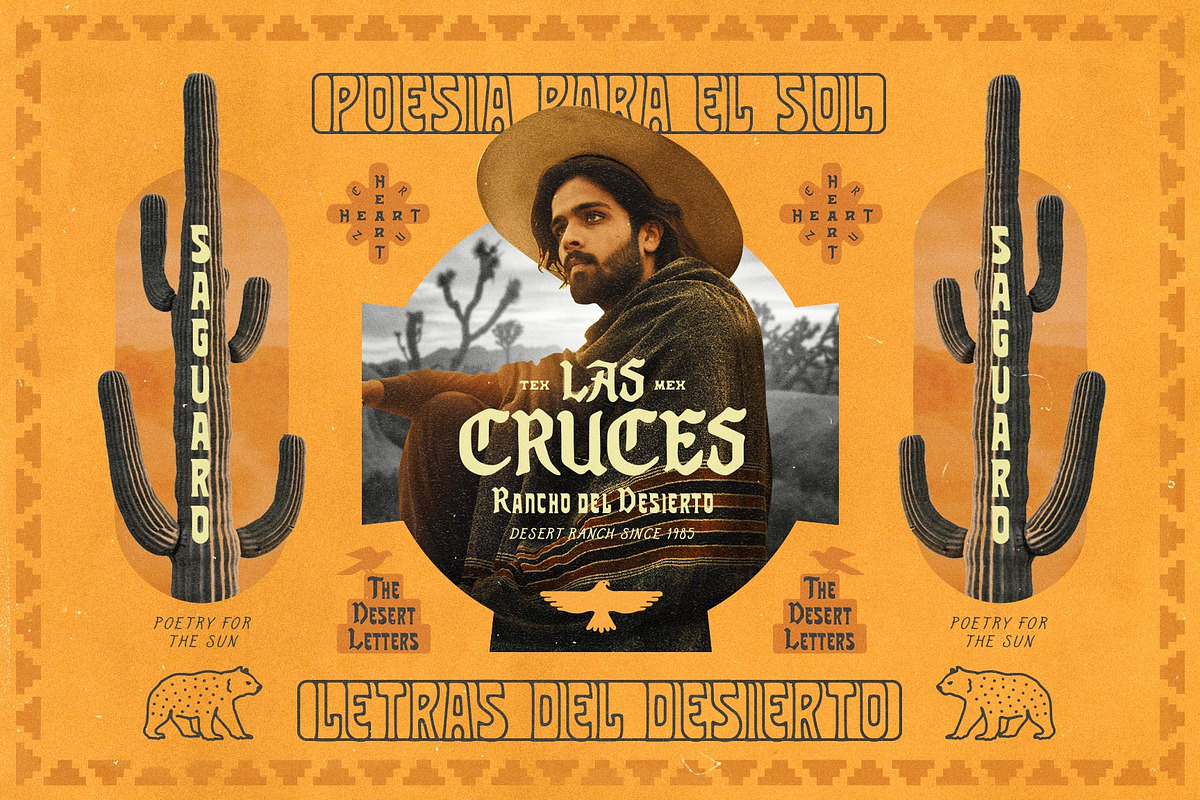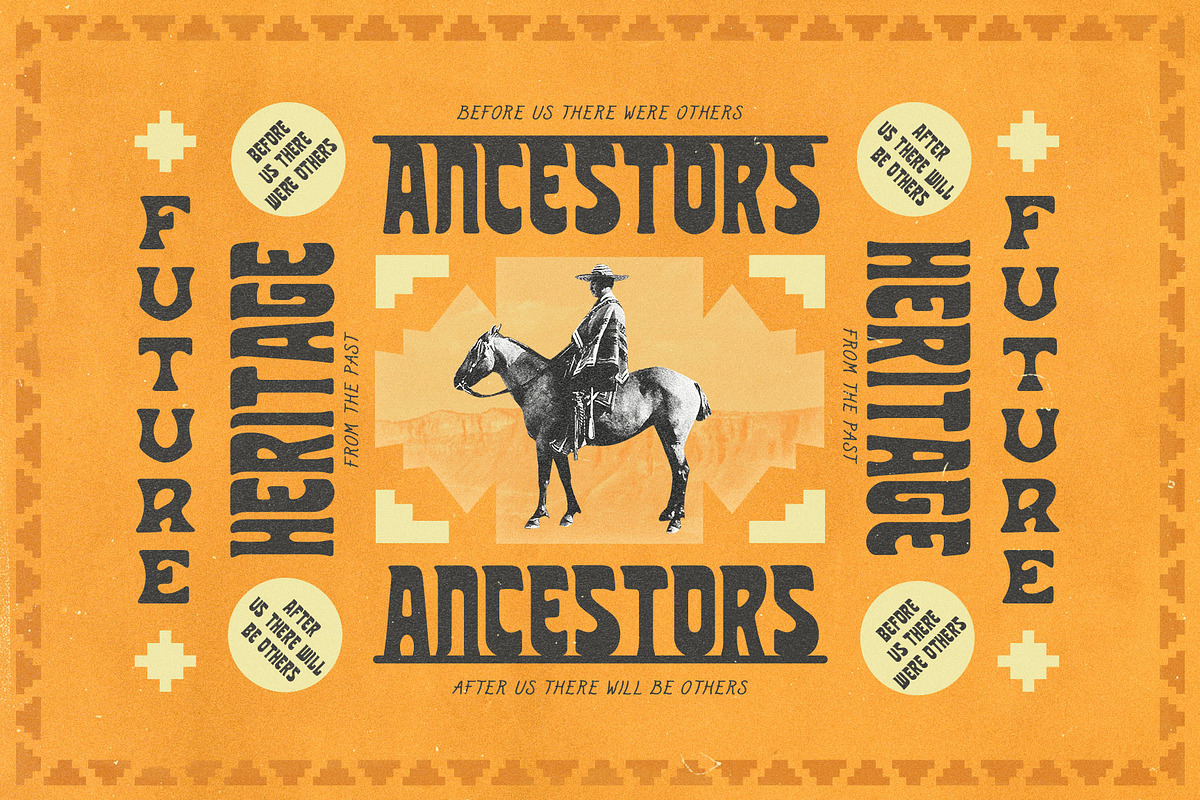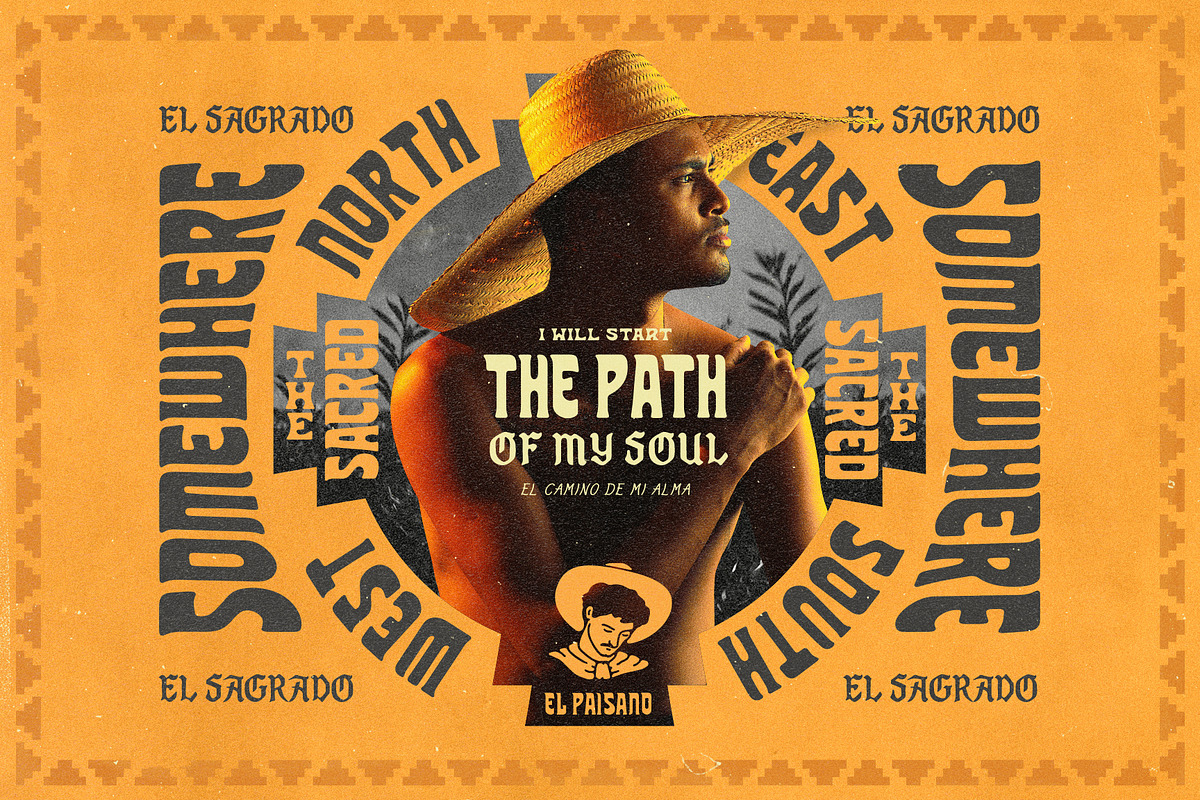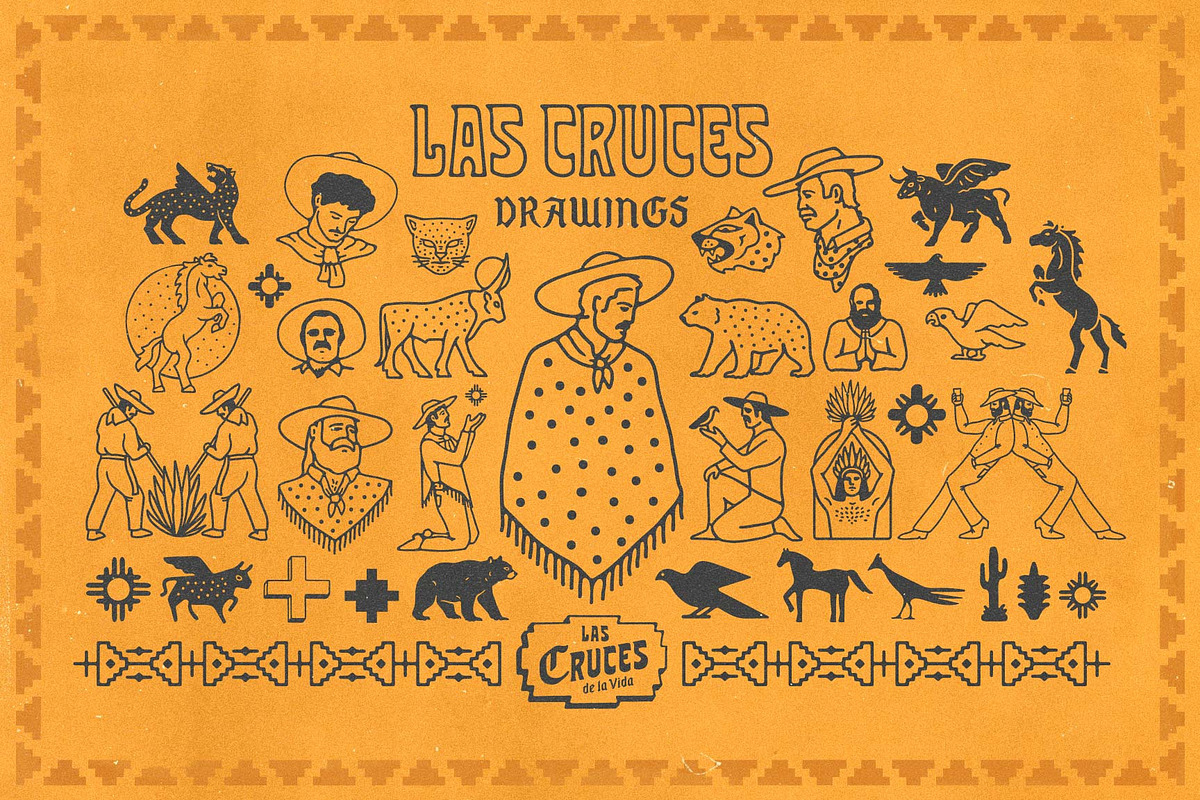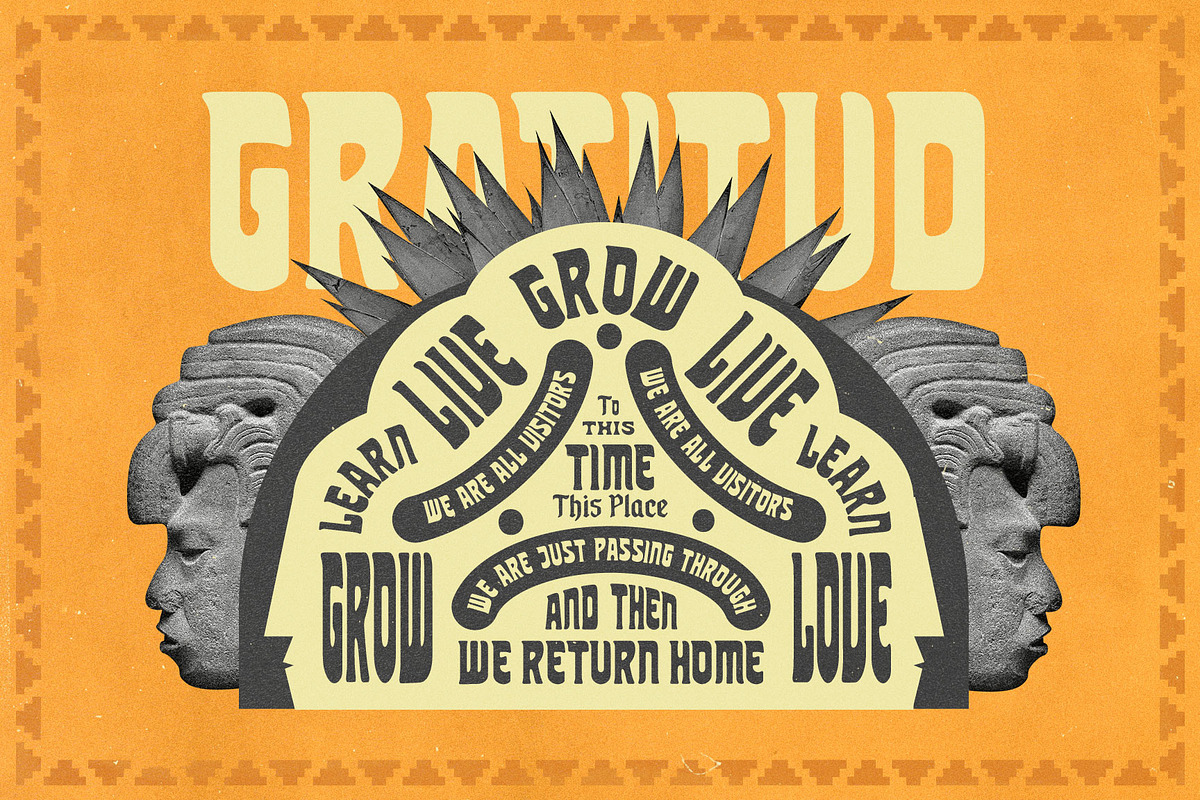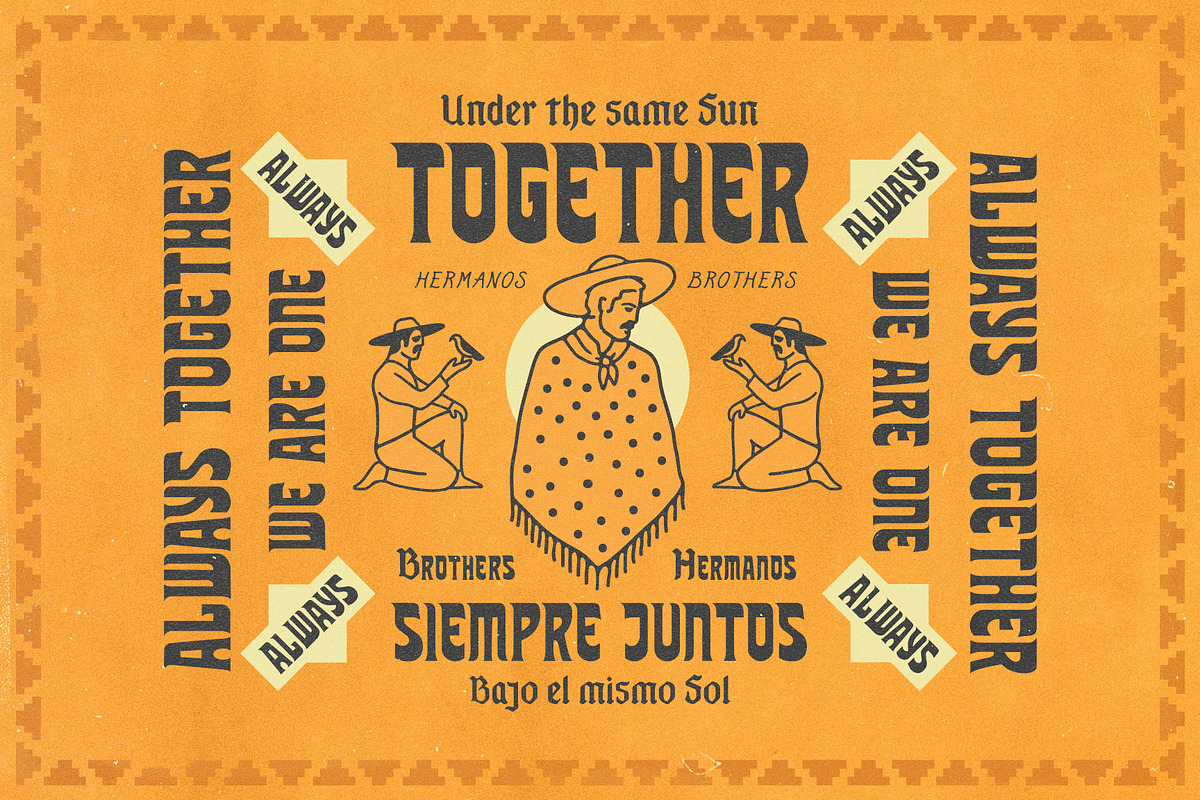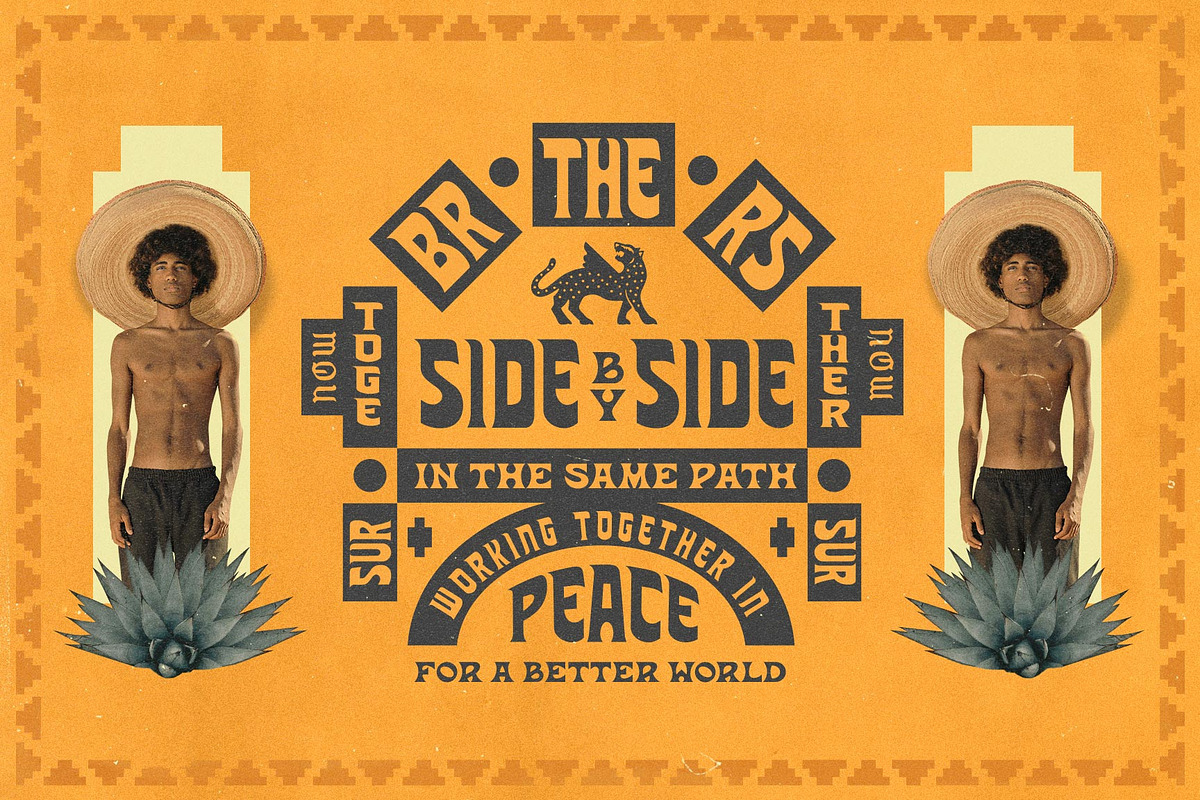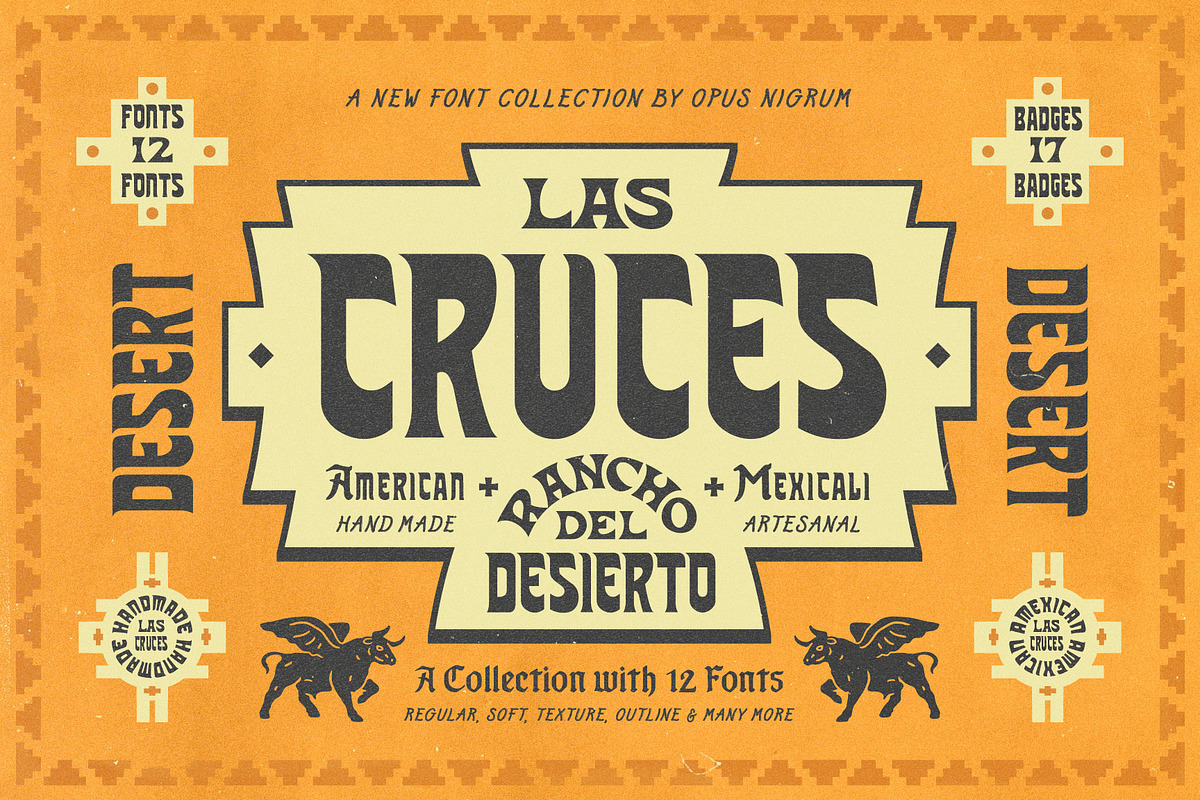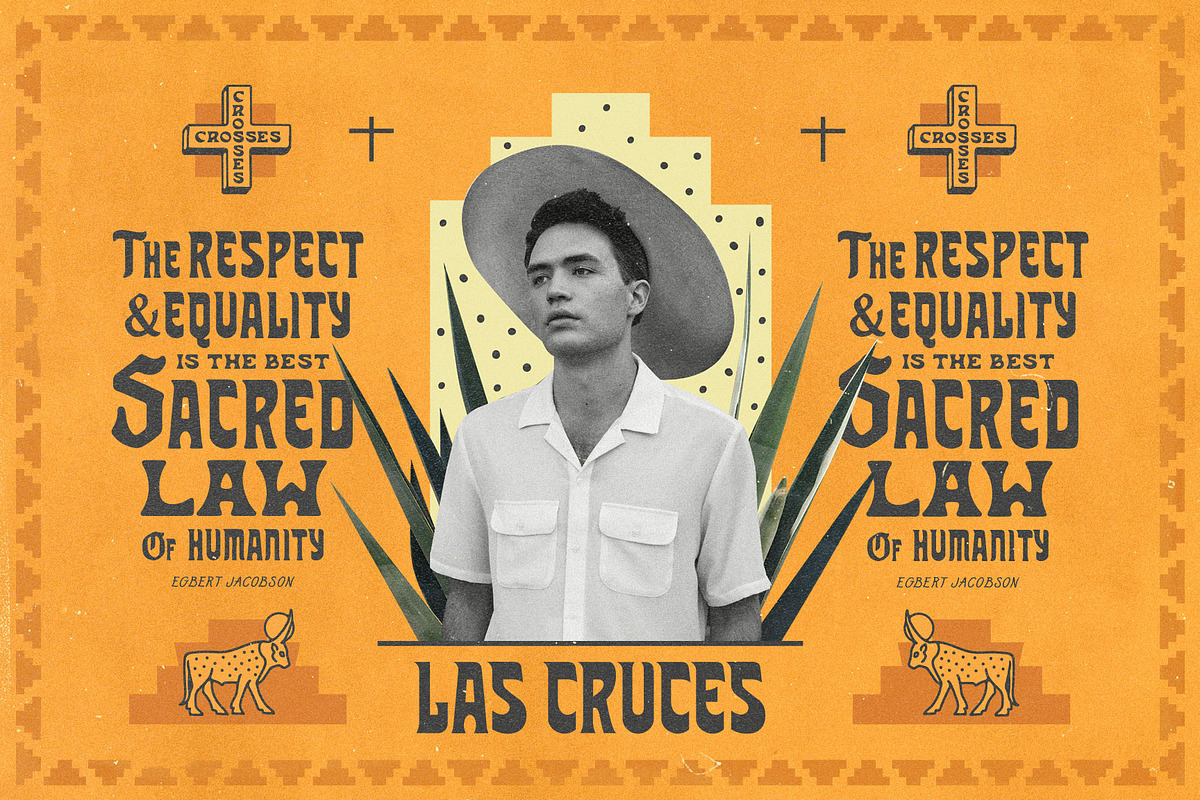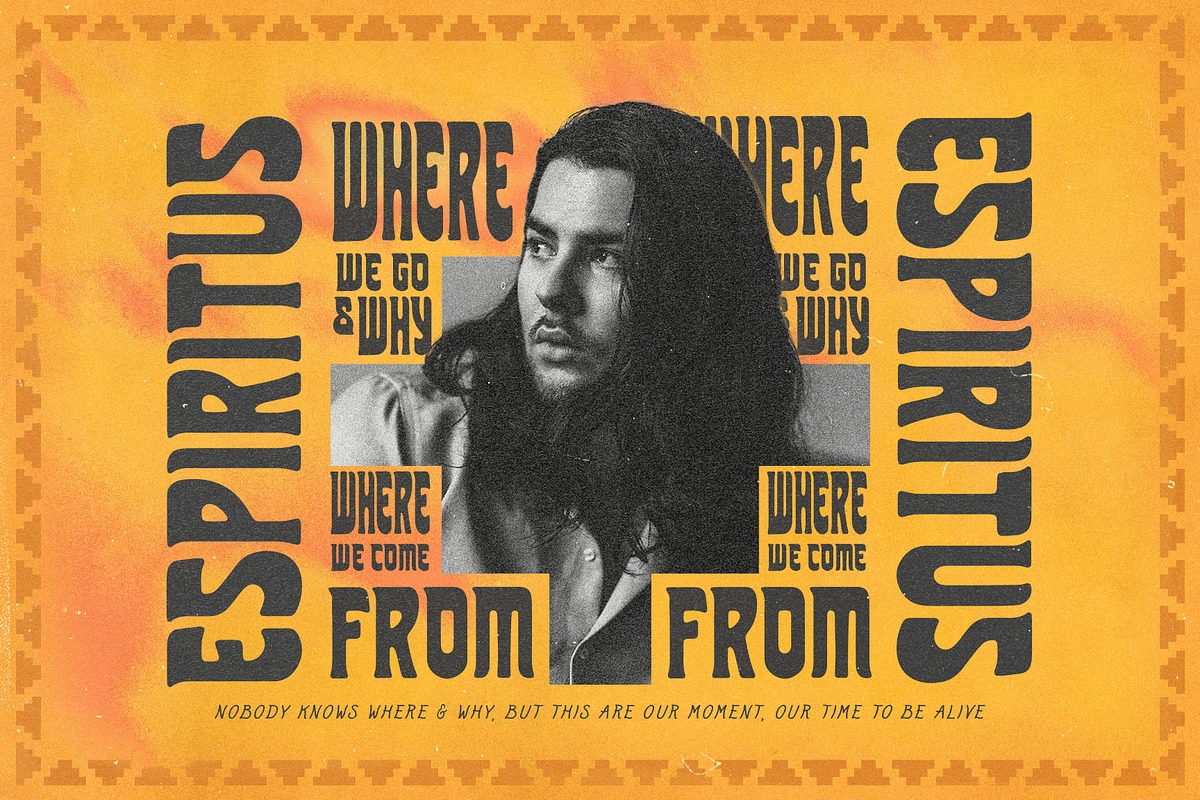
Las Cruces Font Collection + Extras
Las Cruces font Collection, was inspired by the desert, the arid landscapes of America and Mexico, with a Spanish flavor of mezcal and culture. Las Cruces is the intersection of two paths. A starting point, a change of path, a beginning, an end. Enjoy the road
This handcrafted font is wonderful to use for logos, designs, labels, clothing, or anything you want. Play with all the variations. The MIX version combines GOTHIC and SOFT at the same time for something unique. Use all caps for a different look on the GOTHIC version, or switch up with the REGULAR, SOFT, TEXTURE, SLIM, or OUTLINE versions. This font collection creates a unique world and identity.
Extras